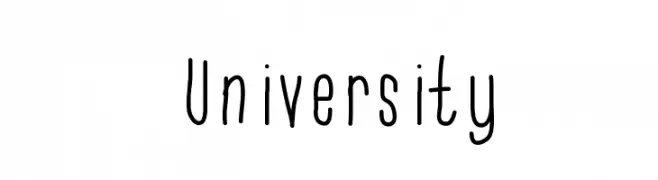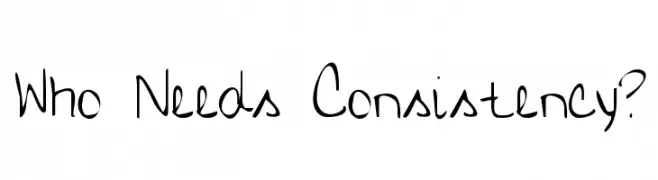
( Fonts by Khrys Bosland )
A playful, hand-drawn font with a quirky, skeleton-like design.
( Fonts by Des Gomez )
A playful, hand-drawn font with tall, narrow characters and a whimsical style.
( Fonts by Khrys Bosland )
A playful, hand-drawn font with a striped pattern and whimsical style.
A playful, dripping paint-style font with irregular, artistic shapes.
( Fonts by Khrys Bosland )
A playful, hand-drawn font with a whimsical and informal style.
A bold, industrial font with characters enclosed in chain-linked frames.
( Fonts by Vanessa Bays - bythebutterfly.com )
A classic serif font with bold, elegant strokes and medium contrast.
( Fonts by Des Gomez )
A playful, handwritten font with tall, narrow letterforms and smooth lines.
A bold, geometric font with sharp, angular characters.
( Fonts by Des Gomez )
A playful, handwritten font with whimsical characters and unique symbols.
( Fonts by Des Gomez )
A playful, hand-drawn font with tall, narrow letters and a whimsical style.
( Fonts by Des Gomez )
A playful, handwritten font with smooth, rounded characters and a modern, casual style.
( Fonts by Khrys Bosland )
A playful, handwritten font with uneven strokes and a casual style.
( Fonts by Khrys Bosland )
A playful, dotted font with a marquee-inspired design.
( Fonts by Des Gomez )
A playful, whimsical handwritten font with a casual and lively style.
( Fonts by Des Gomez )
A playful, hand-drawn font with a whimsical and lively style.
( Fonts by Khrys Bosland )
A playful, handwritten font with whimsical loops and curls.
( Fonts by Des Gomez )
A playful, hand-drawn font with tall, narrow characters and a whimsical style.
( Fonts by Khrys Bosland )
A playful, hand-drawn font with a bouncy, energetic style and double-line effect.
( Fonts by Des Gomez )
A playful, handwritten font with a casual and informal style.
( Fonts by Khrys Bosland )
A playful, decorative font with bold outlines and intricate patterns.
( Fonts by Khrys Bosland )
( Fonts by Des Gomez )
A playful, handwritten font with tall, narrow letters and a whimsical style.
( Fonts by Des Gomez )
A playful, handwritten font with tall, narrow letters and consistent stroke width.
( Fonts by Des Gomez )
A playful, handwritten font with tall, narrow letters and decorative symbols.
( Fonts by Des Gomez )